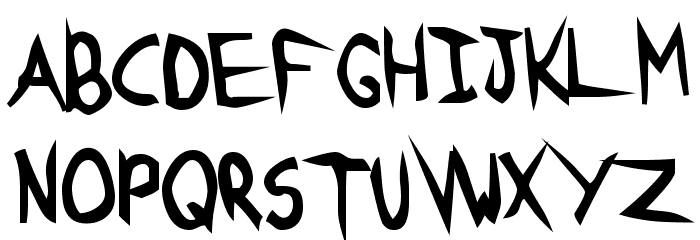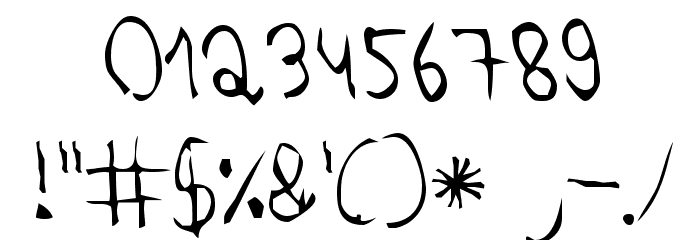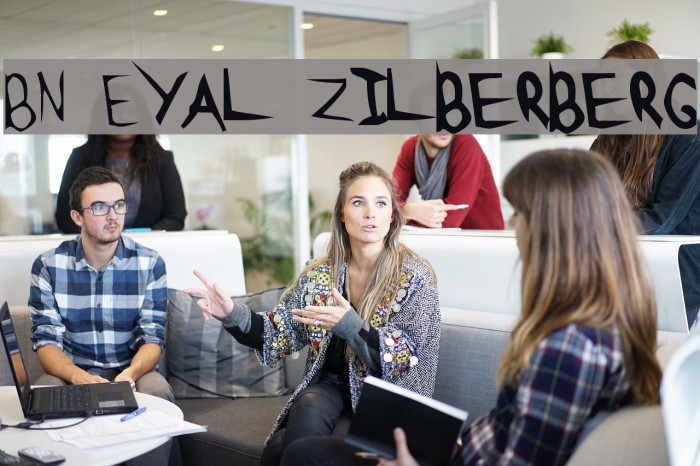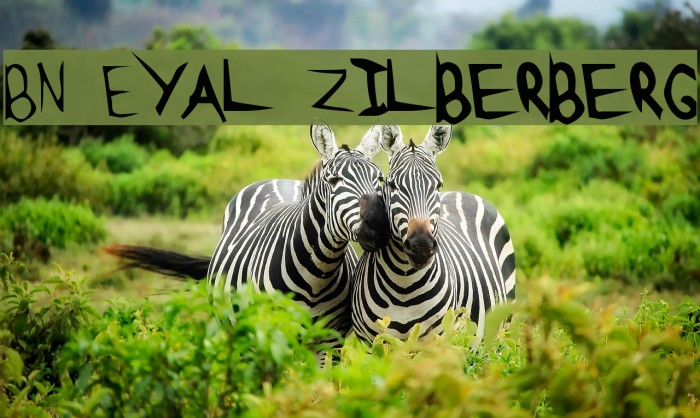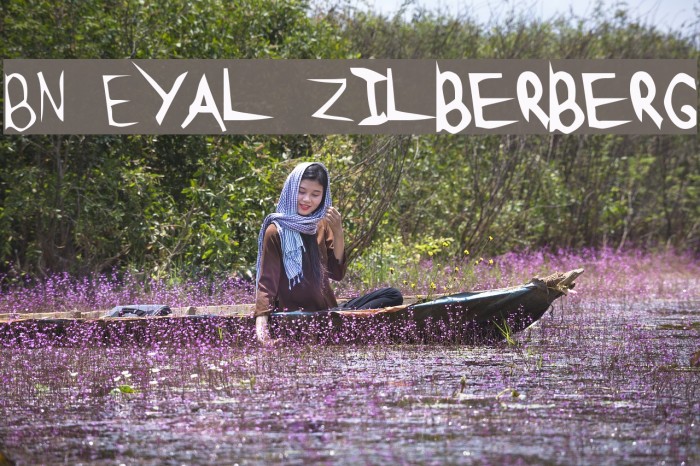
BN Eyal Zilberberg Font
This font features a dynamic and edgy design, characterized by sharp angles and irregular shapes that give it a unique, almost hand-drawn appearance. The uppercase letters are bold and striking, with a playful yet aggressive style that commands attention. The lowercase letters maintain this energetic feel, with a slightly more fluid form. Numbers and special characters follow the same aesthetic, ensuring consistency across all glyphs. The overall look is modern and unconventional, making it suitable for projects that require a bold statement or a creative touch.
A bold, edgy font with sharp angles and a hand-drawn feel.
- Proposed Projects: Ideal for album covers, posters, branding for edgy or creative industries, and any project that requires a standout, artistic typeface.